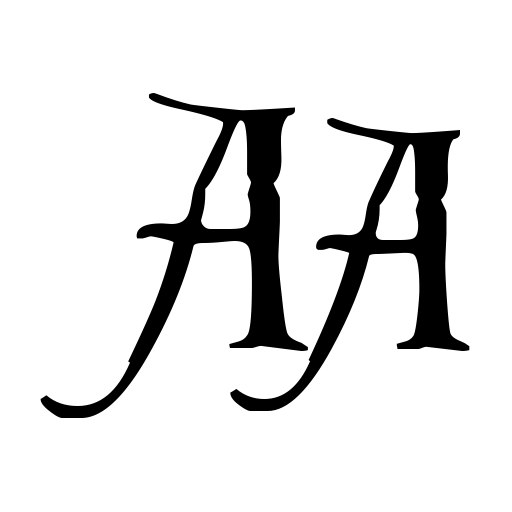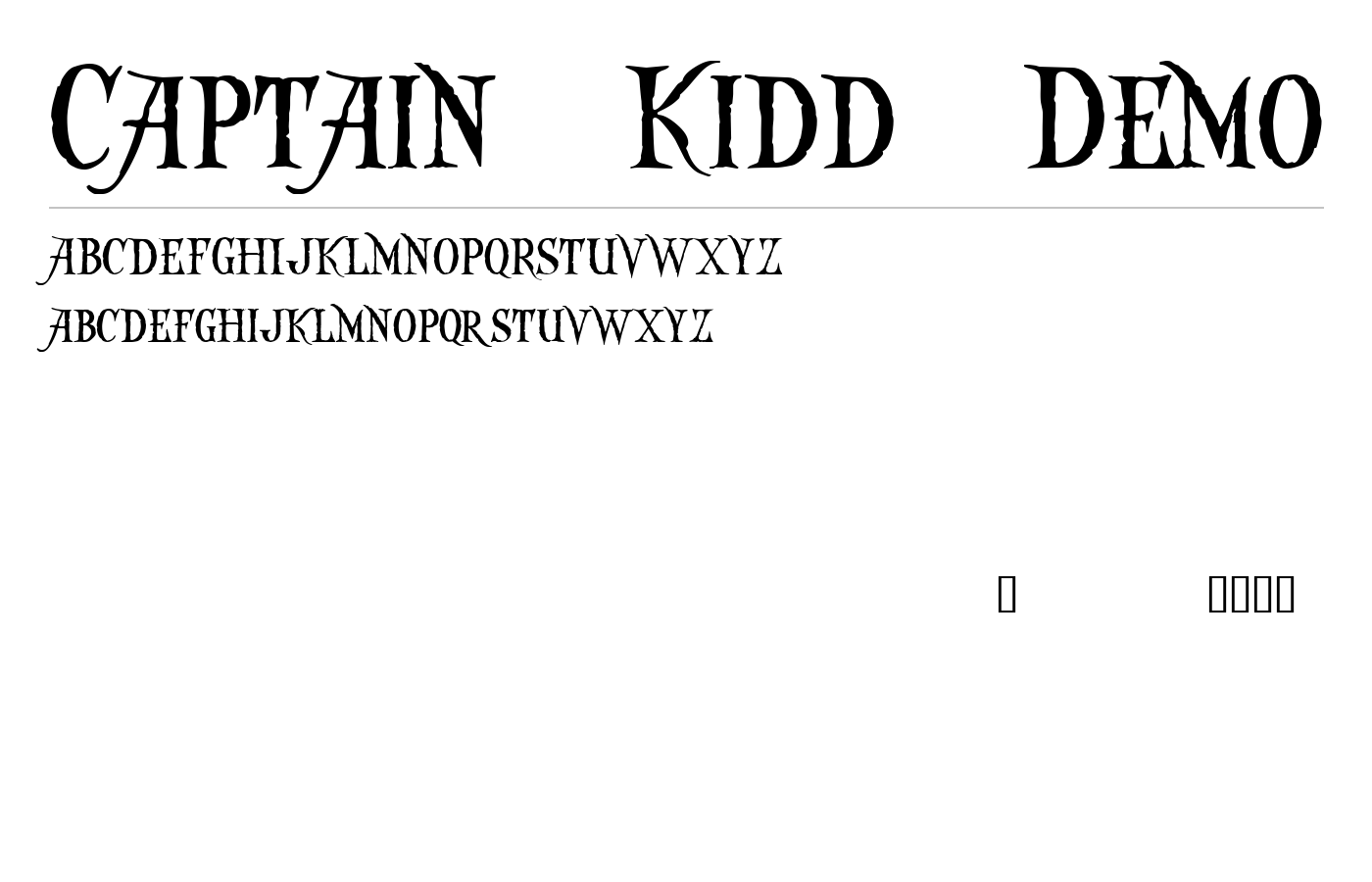
Captain Kidd Demo is a decorative serif font with a vintage, pirate-inspired style featuring sharp, irregular serifs and a slightly condensed width. Its uneven stroke contrast and whimsical letterforms evoke an adventurous, old-world charm, making it perfect for themed designs, logos, posters, or packaging that need a bold, characterful look with a touch of storytelling flair.
Captain Kidd Demo Font
About Captain Kidd Demo Font